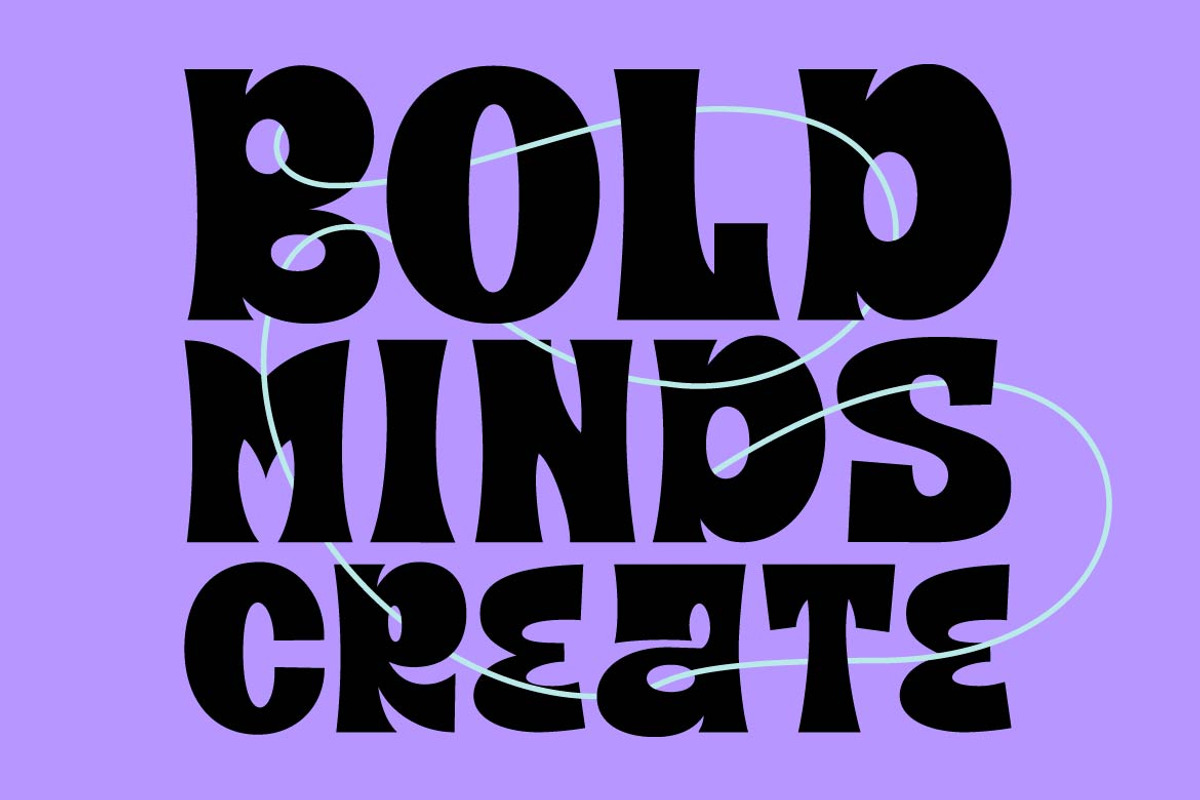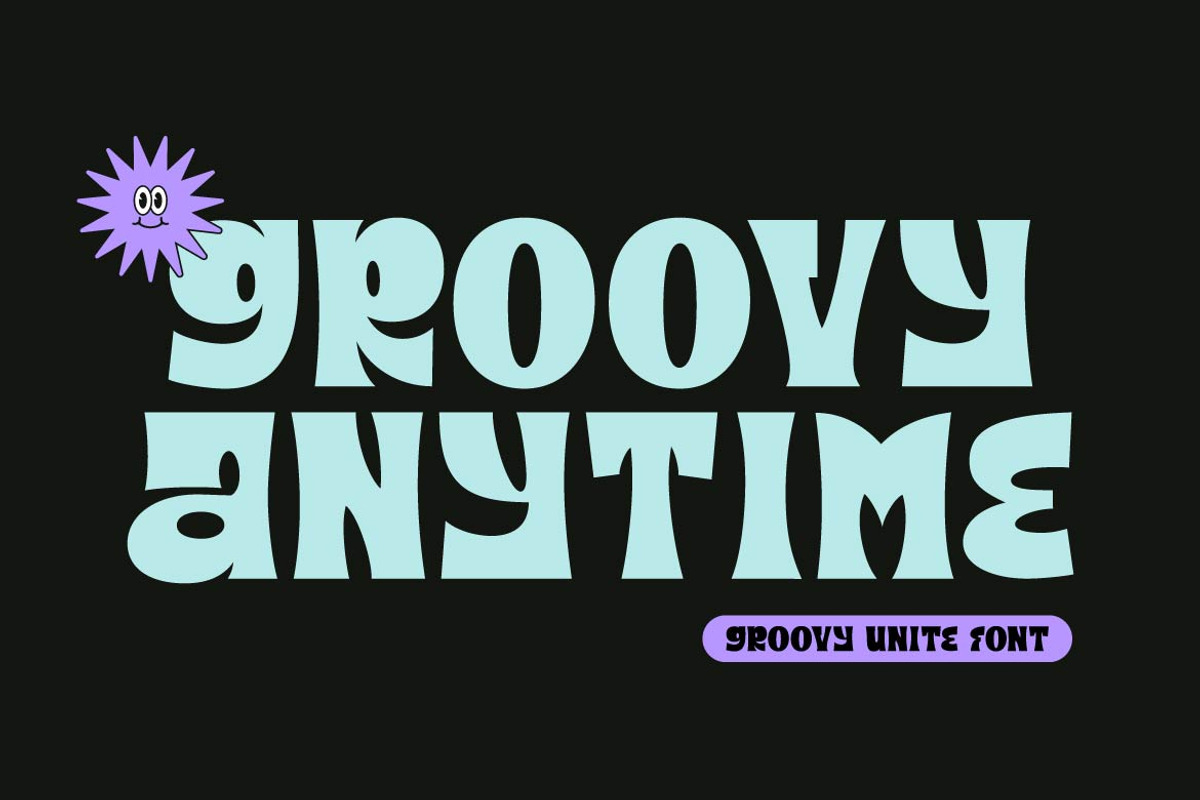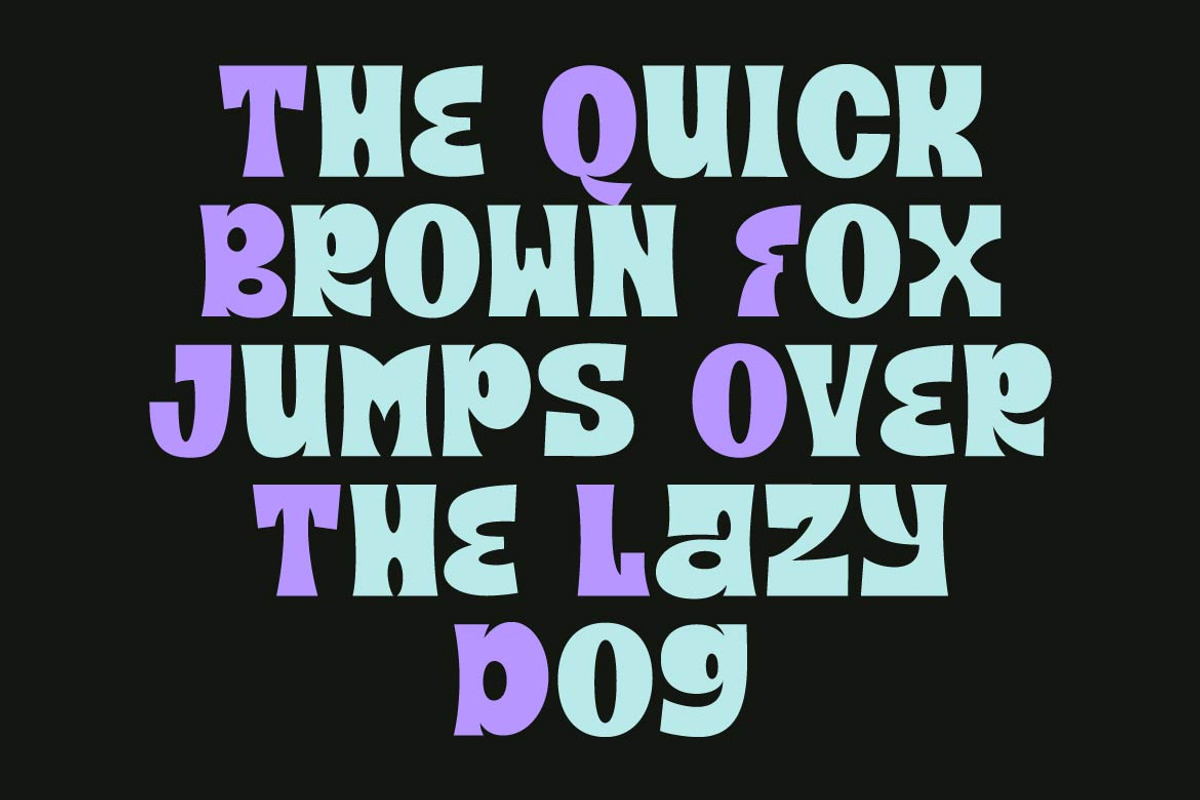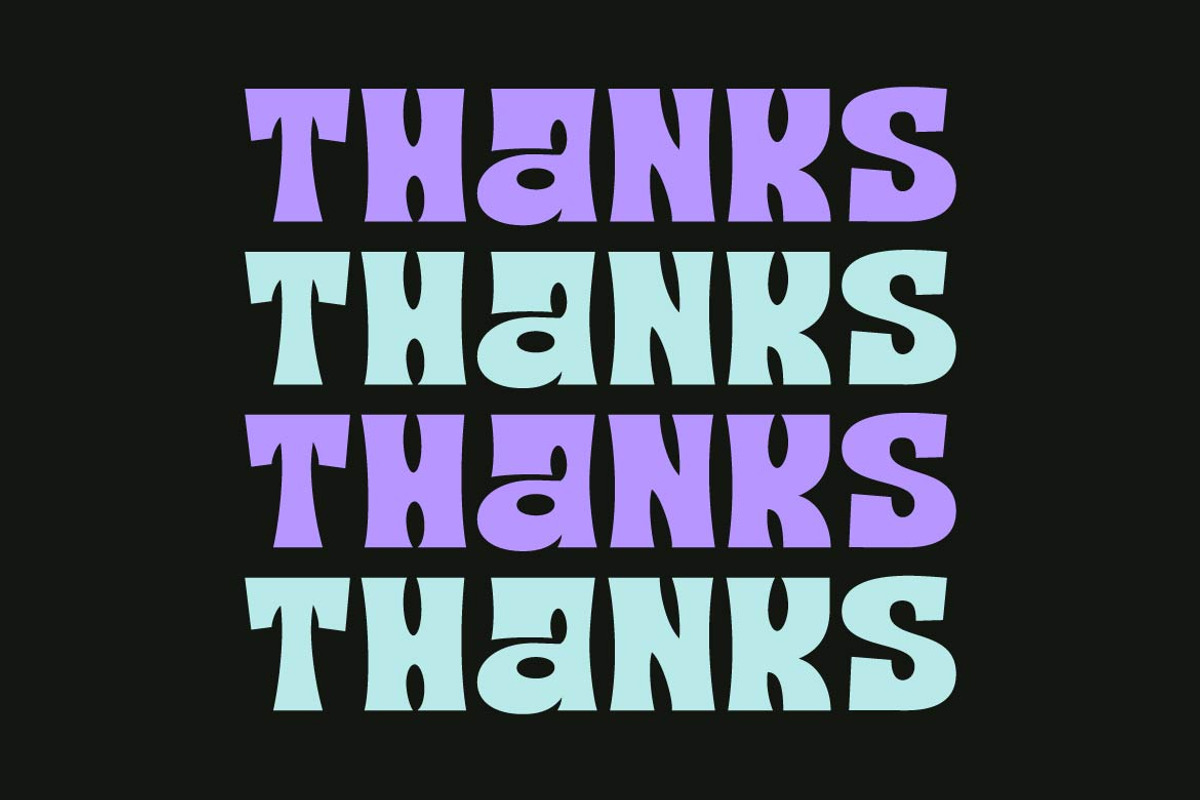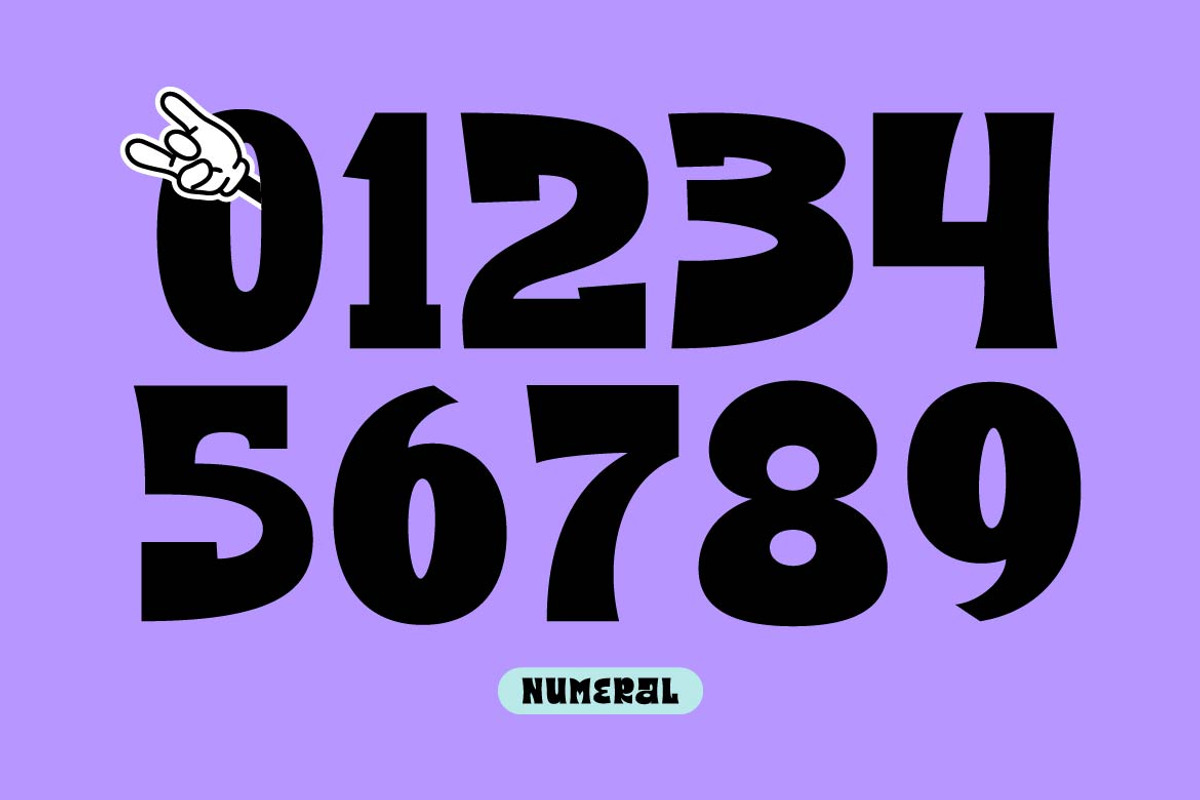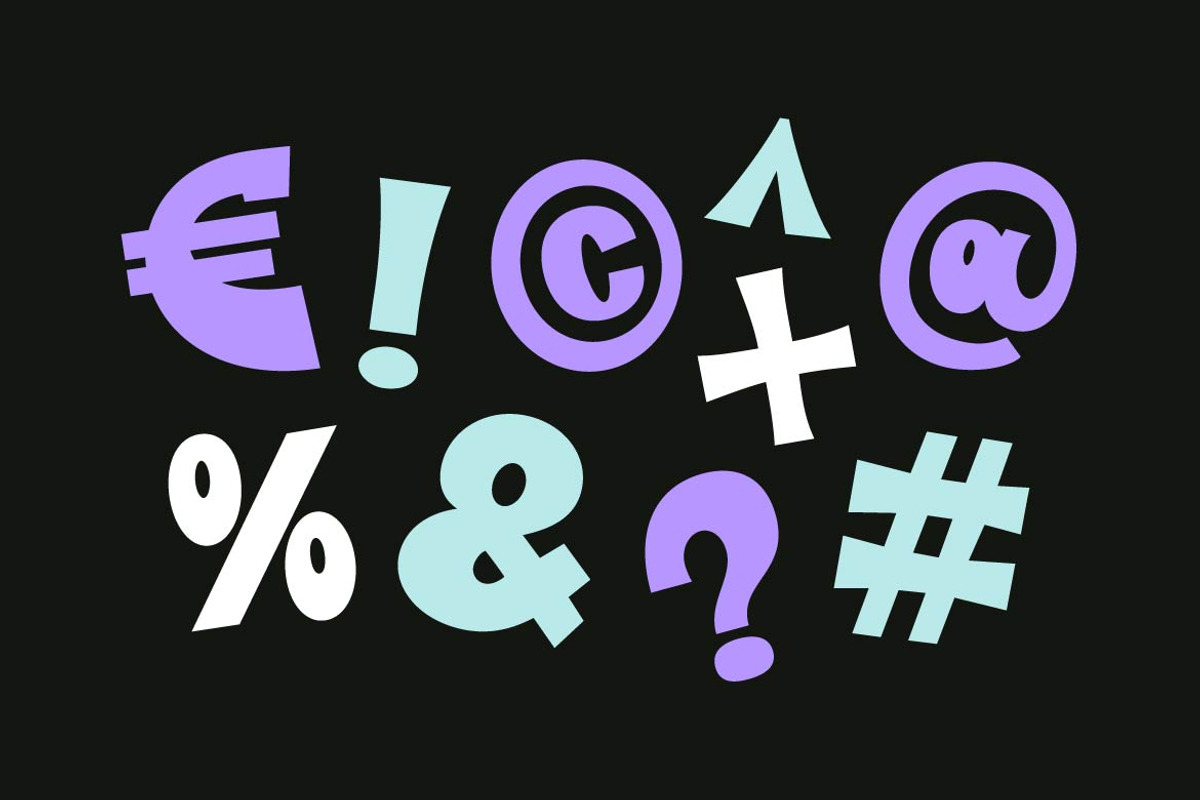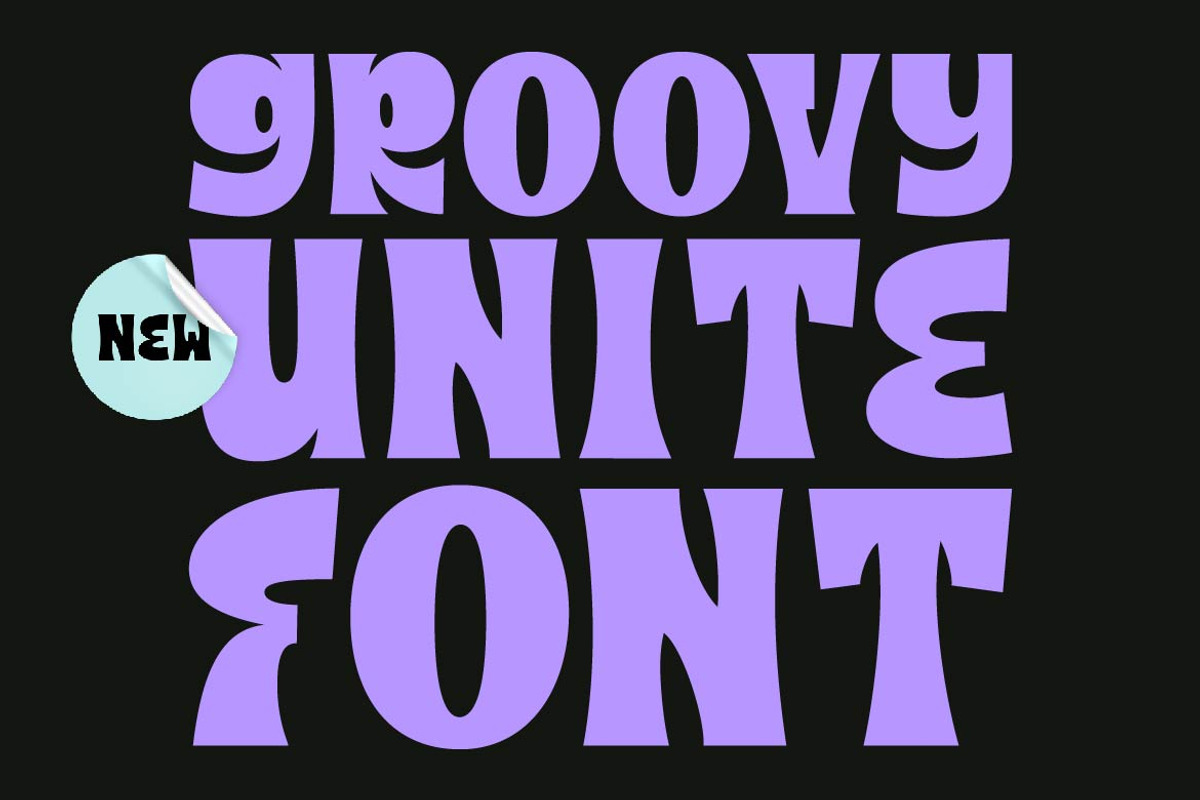
Unite - Modern Bold Logo Font
Groovy Unite is a font that combines a modern touch with a groovy aesthetic, resulting in a unique typeface that exudes a retro-cool feel.
With its resemblance to a sans serif font, this groovy font creates a balance between vintage appeal and contemporary design.
Perfect for adding a touch of nostalgia with a modern twist, Groovy Unite is ideal for a variety of creative projects that want a mix of retro and contemporary styles.